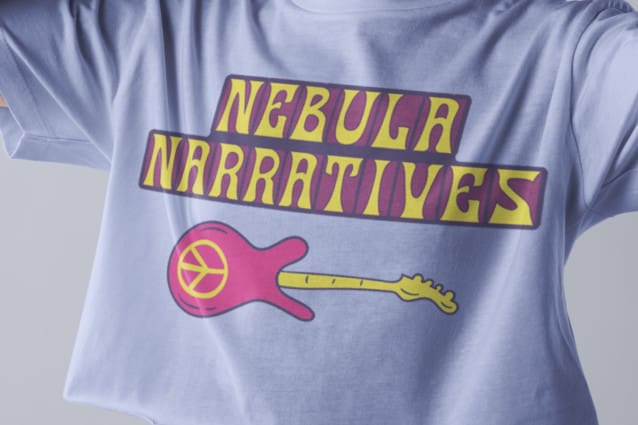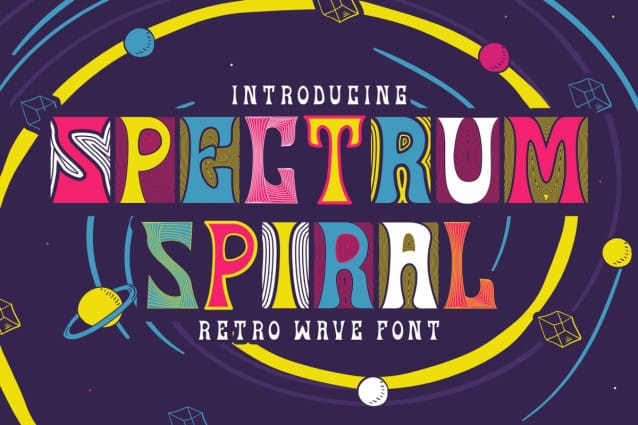
Spectrum Spiral Font
Spectrum Spiral – Retro Wave Font, where the spirit of the ’80s meets modern design sensibilities. This display font is a visual symphony of lines and waves, blending together to form a dynamic and captivating typeface. Each character is crafted with a seamless flow, making it a standout choice for designers looking to infuse their work with the energy and boldness of the retro wave movement. Whether it’s for logos that demand attention, branding that breaks the mold, or crafting that connects with the heart, Spectrum Spiral brings a unique flair to every creation.
Perfect for an array of design needs, from invitations that resonate with personality to packaging that pops off the shelves, posters that tell a story, and titles that command the room. Spectrum Spiral is not just a font; it’s a statement. It’s ideal for businesses looking to make an impact, greeting cards that celebrate the extraordinary, stickers that spread joy, children’s books that ignite imagination, and magazines that set trends. Embrace the wave of nostalgia and let Spectrum Spiral be the font that defines your next design era.